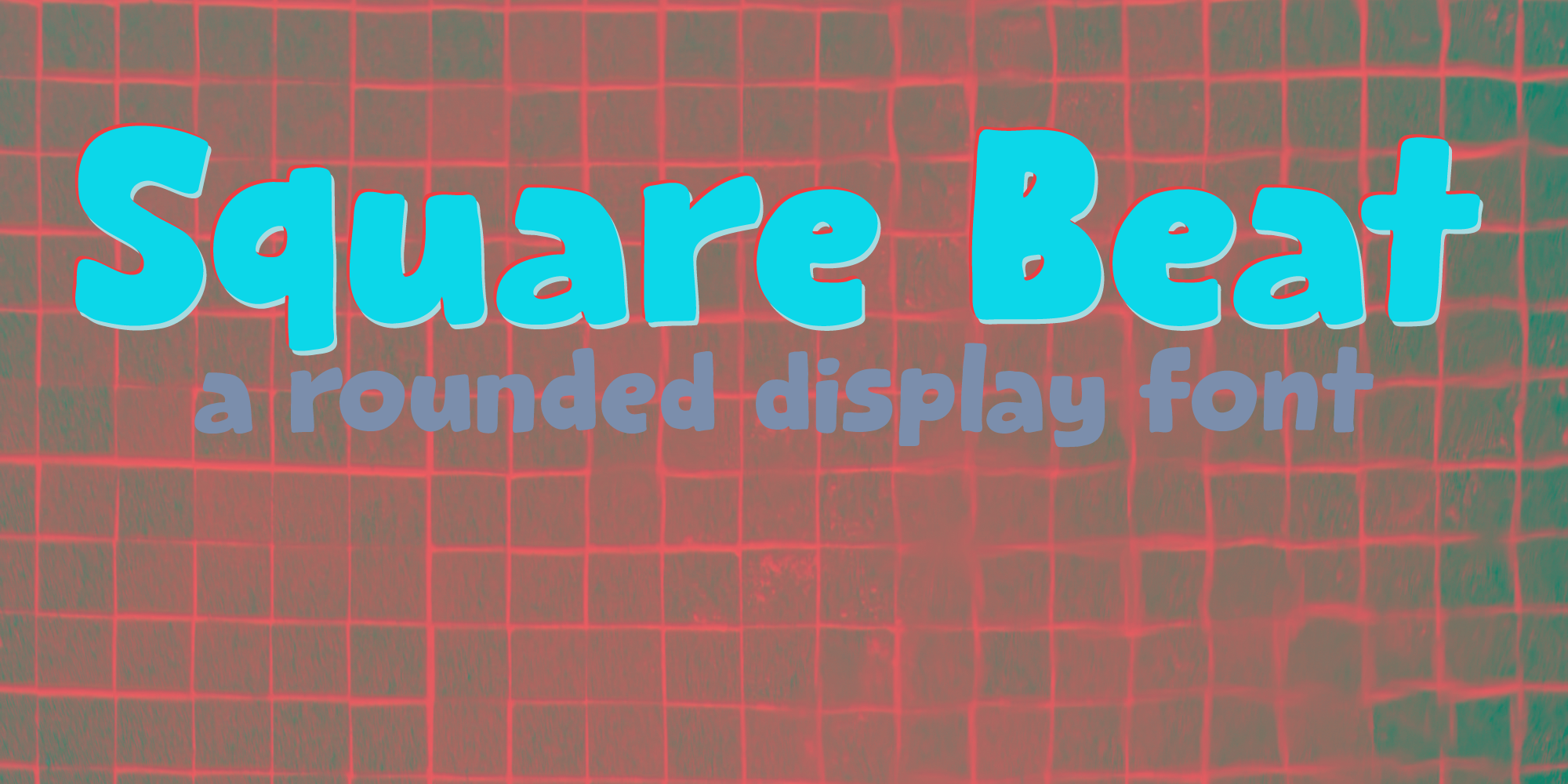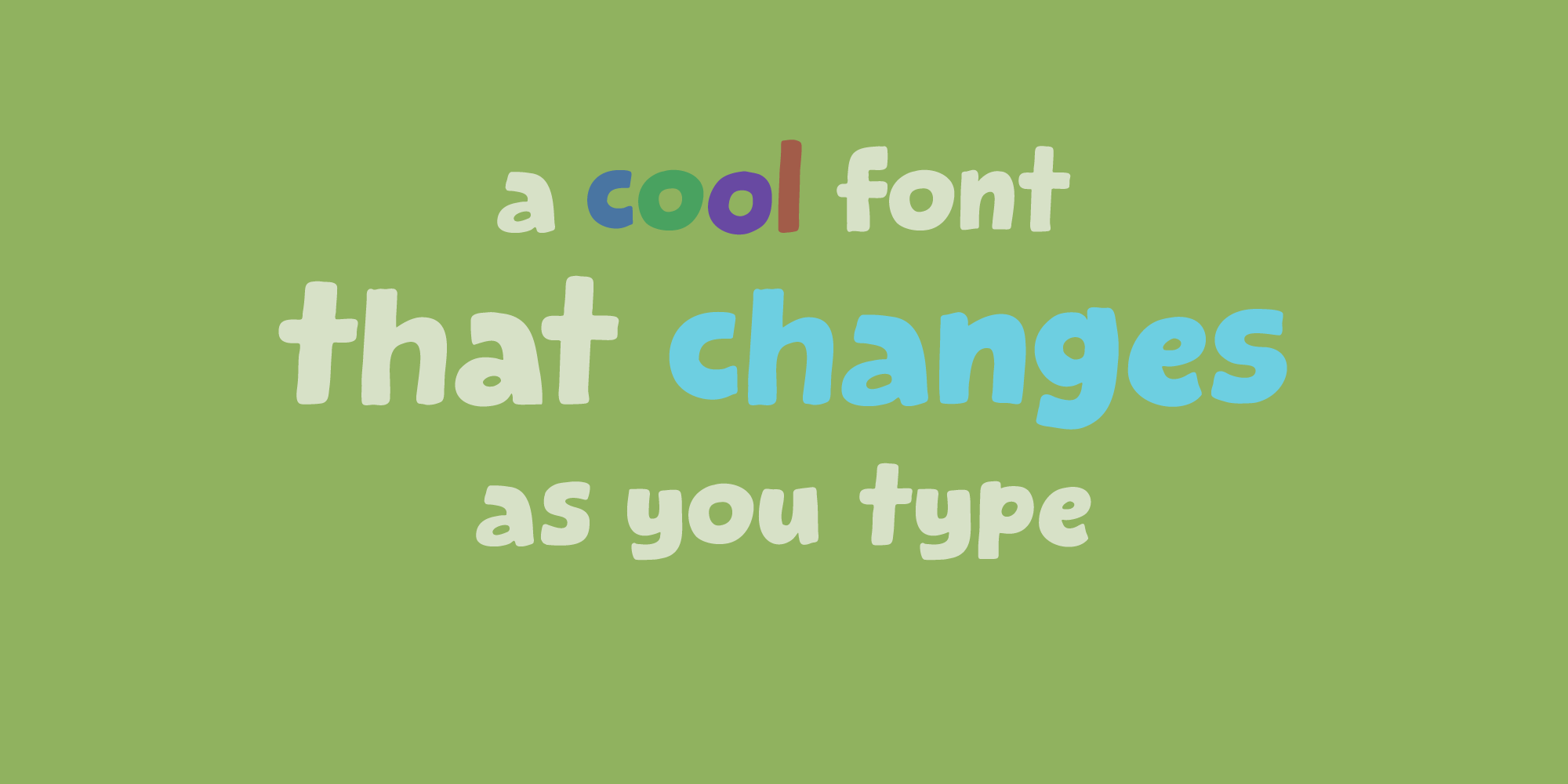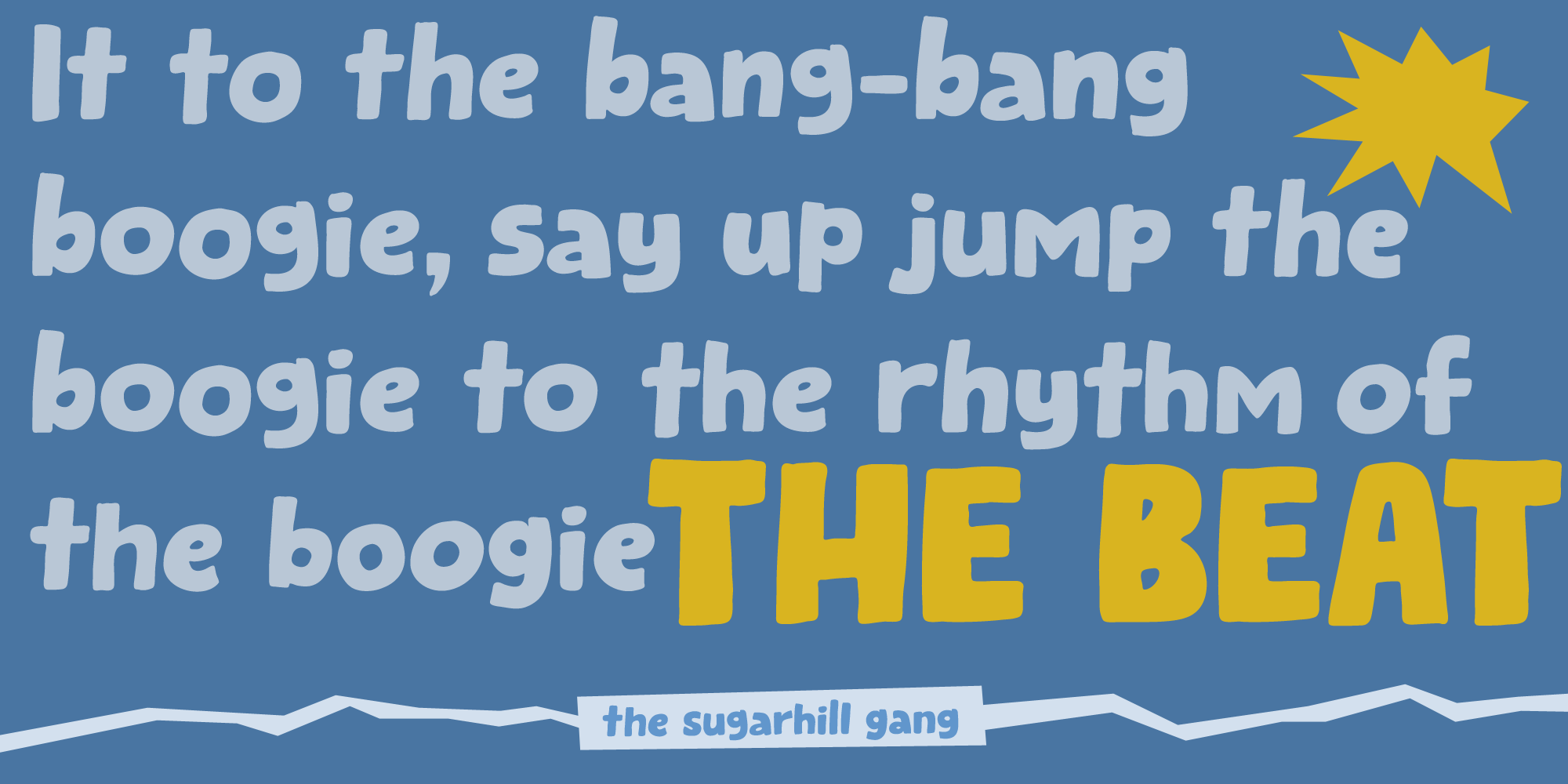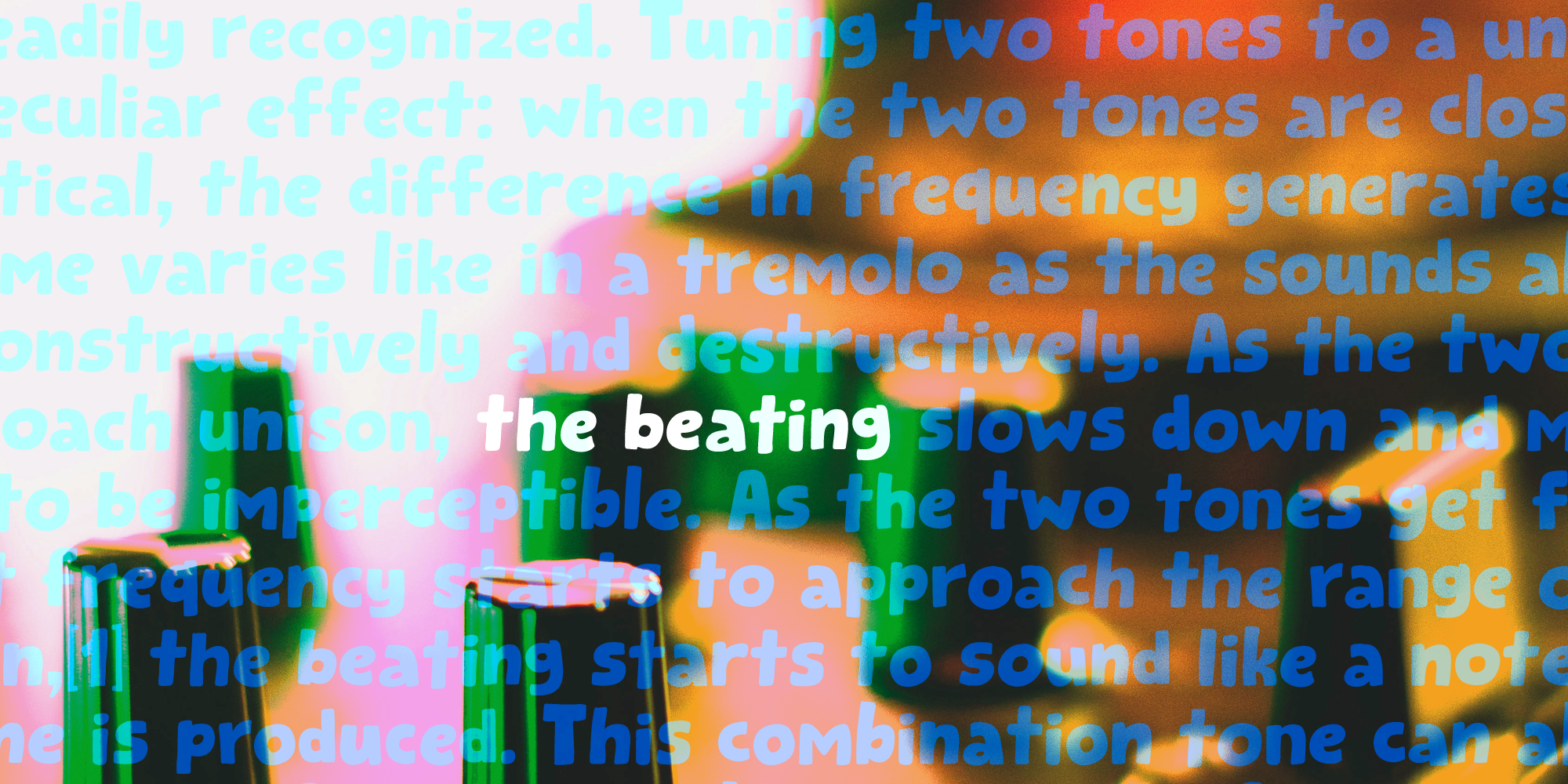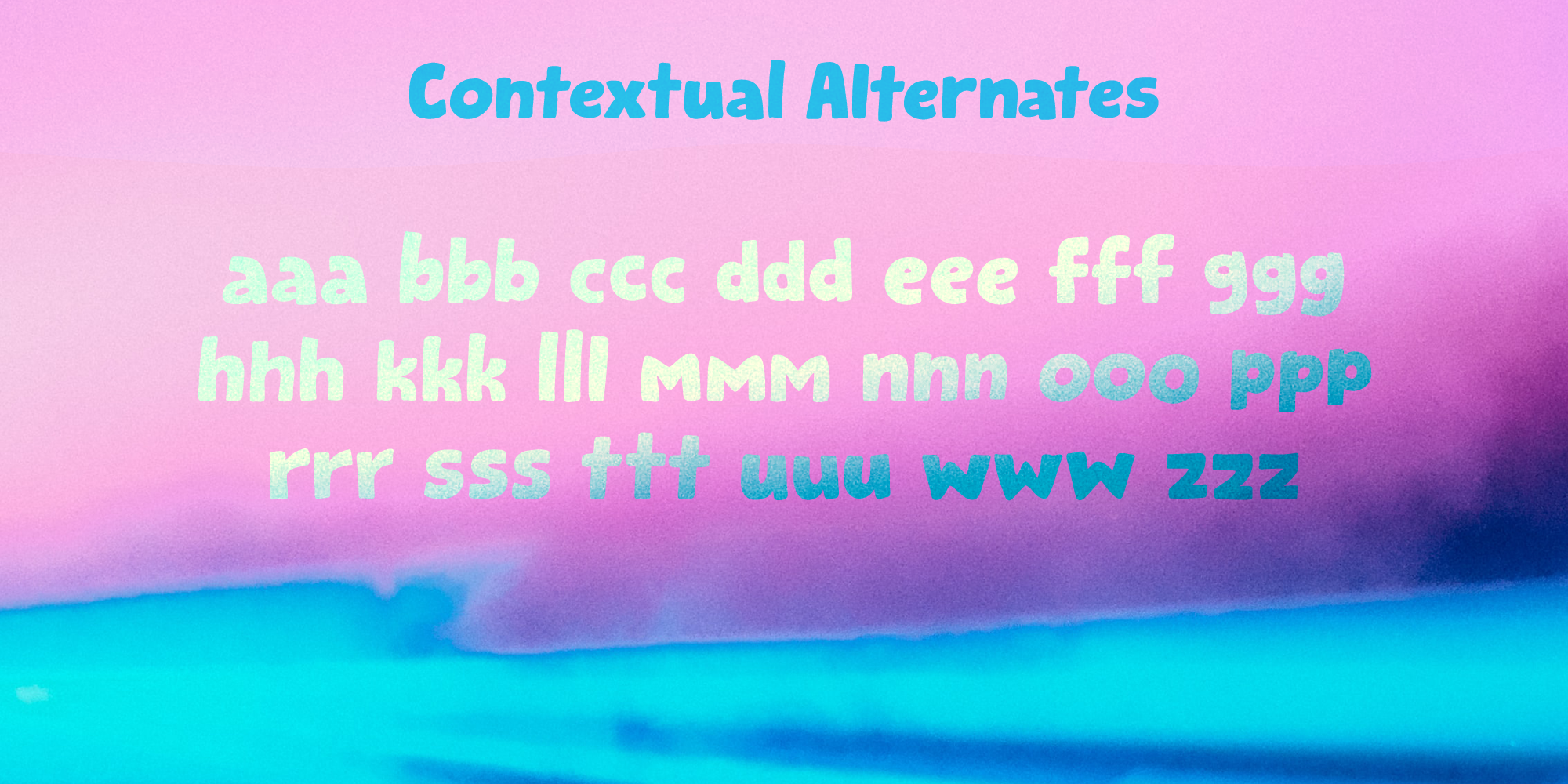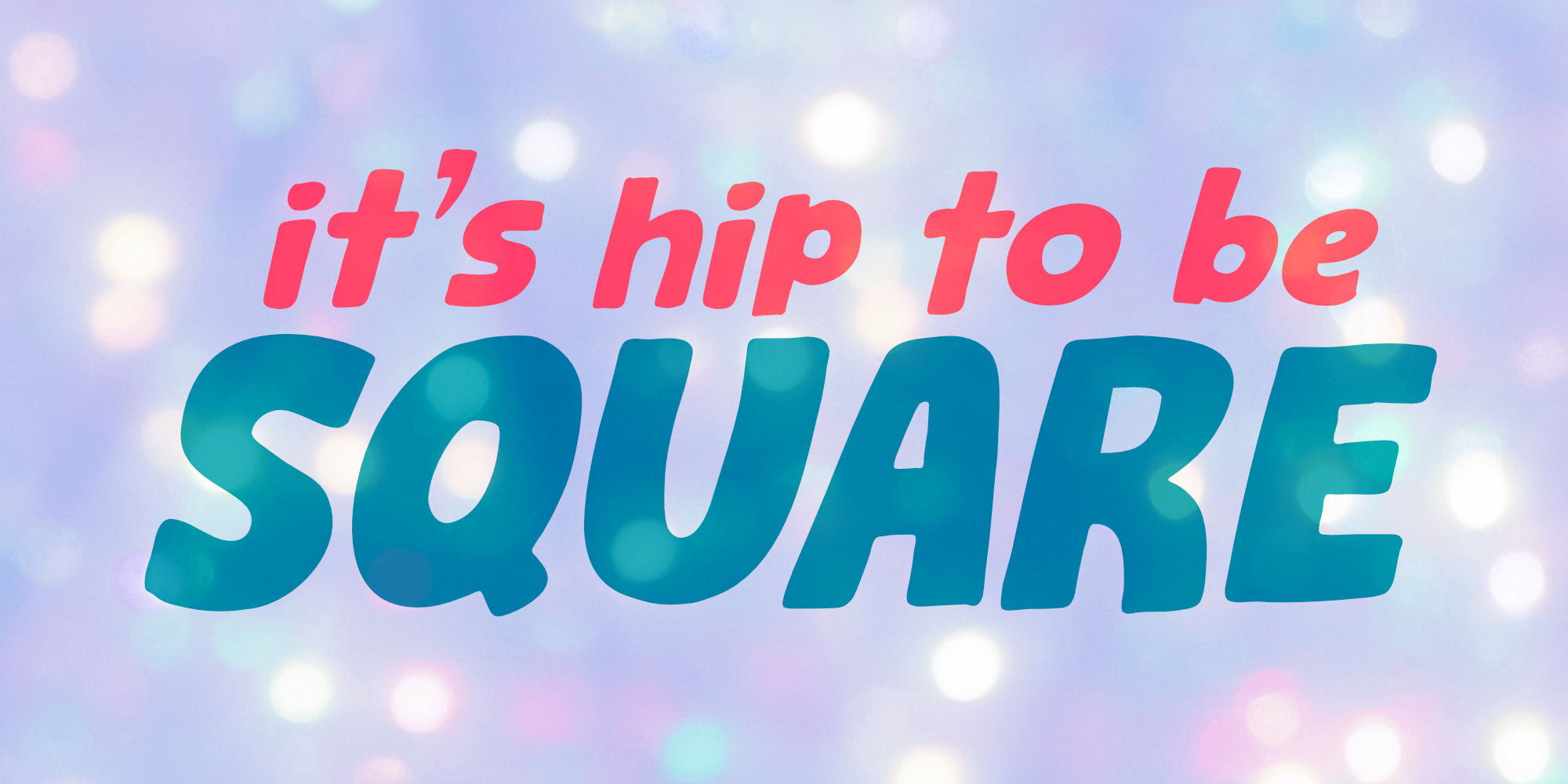
Square Beat (2 fonts)
One day, during a workout session, I listened to a list of eighties music and one song that I had forgotten about started playing: Rappers Delight by The Sugarhill Gang.
When I started working on the font, I had to think about the song and named it Square Beat.
Square Beat font, other than the name implies, is a rounded, handmade font, ideally suited for books and magazines aimed at a young audience, toy packaging or posters. It comes with great language support, including Vietnamese.